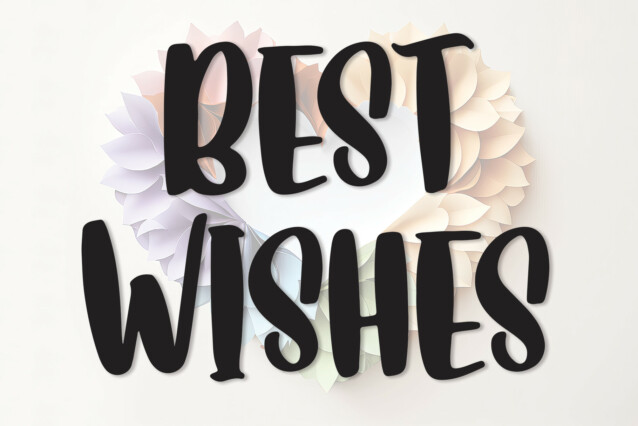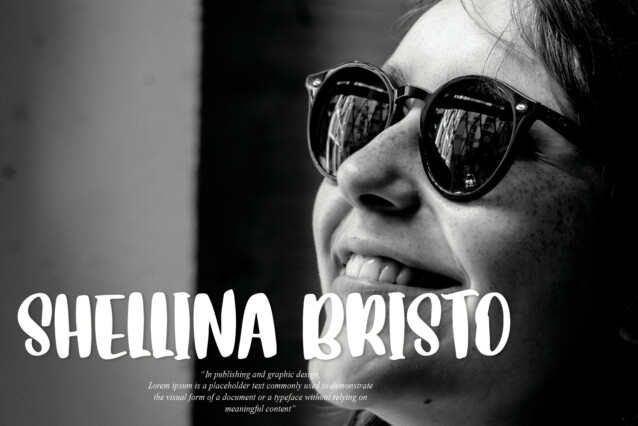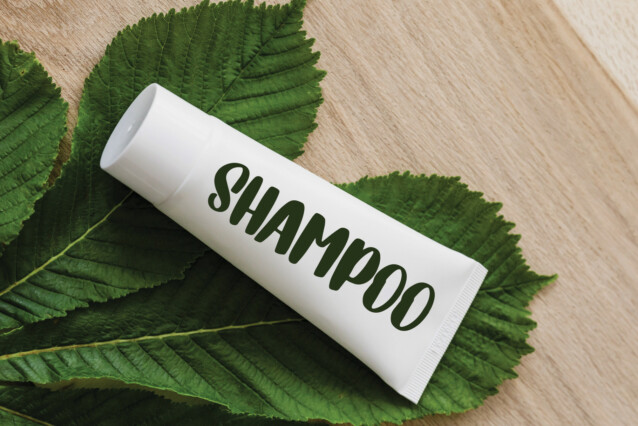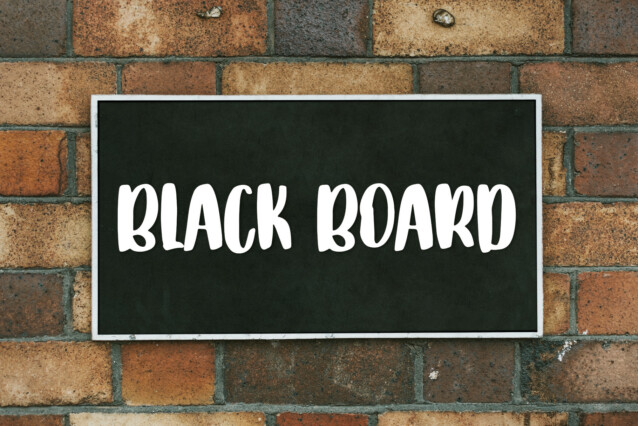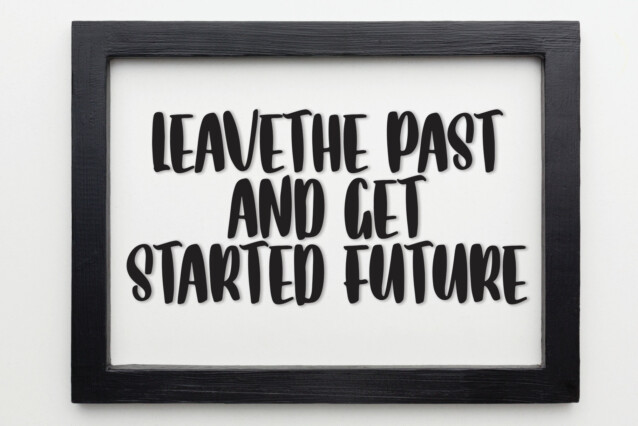
Best Wishes Display Font
Best Wishes Display Font is a stylish and elegant handwritten font. It looks stunning on wedding invitations, thank you cards, quotes, greeting cards, logos, business cards, and any other design that needs a handwritten touch.